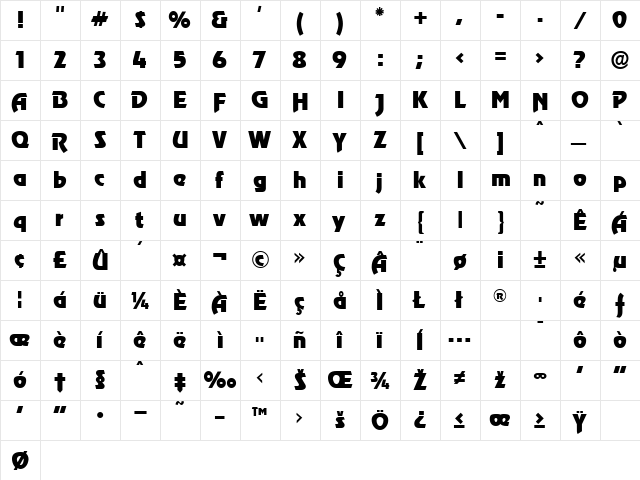
Rizzoe Regular
Design Context for Rizzoe Typeface
Rizzoe is a composed and adaptable typeface that performs quietly and consistently across a wide range of design contexts.